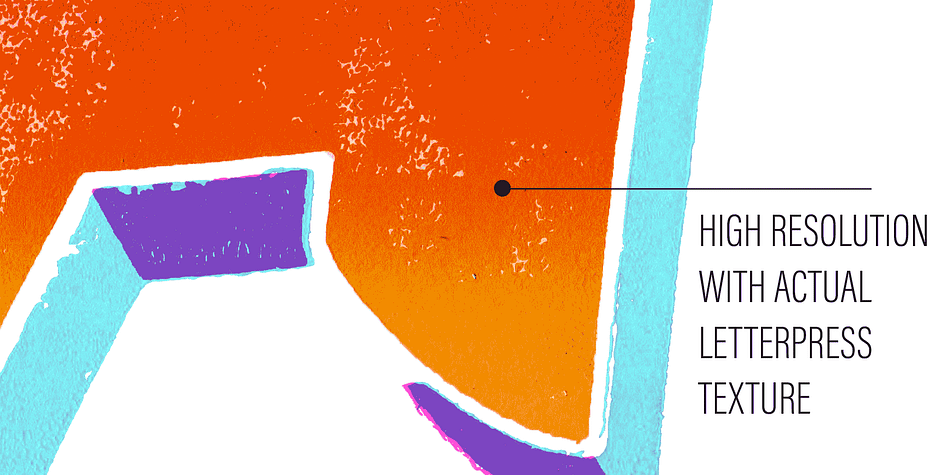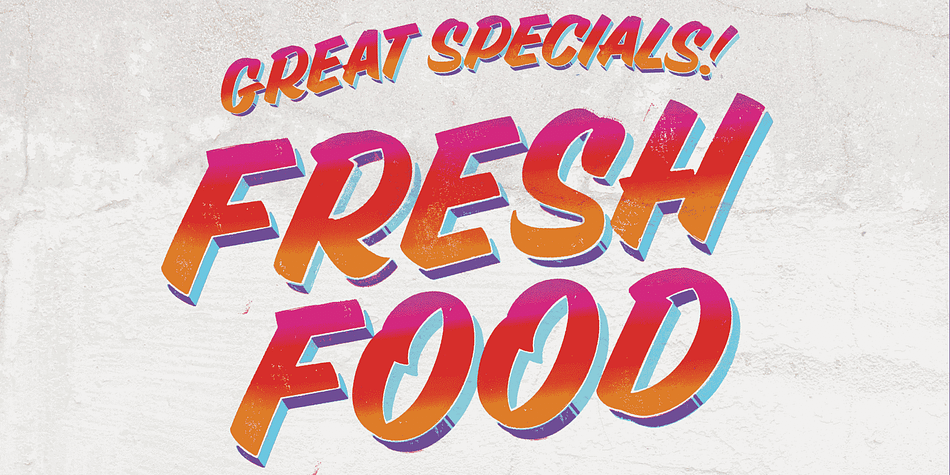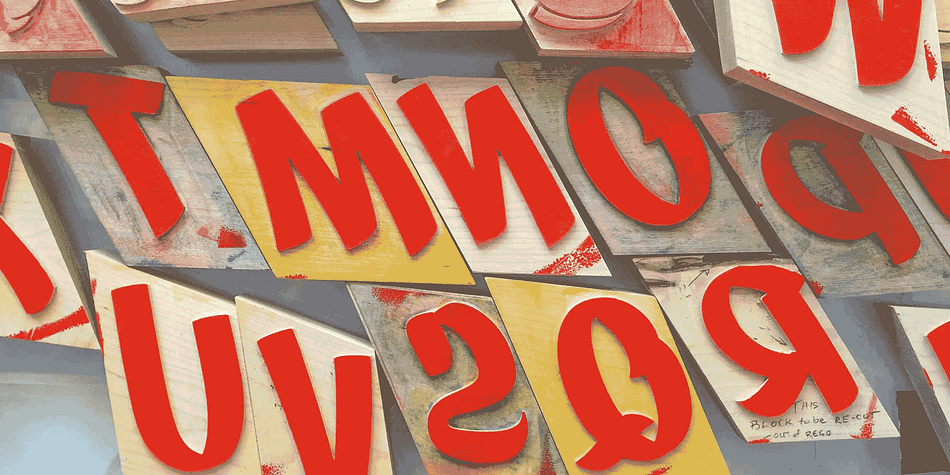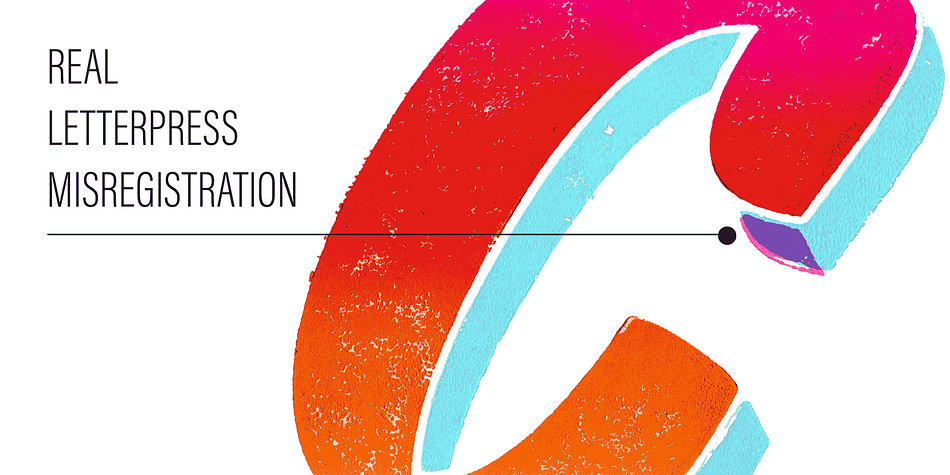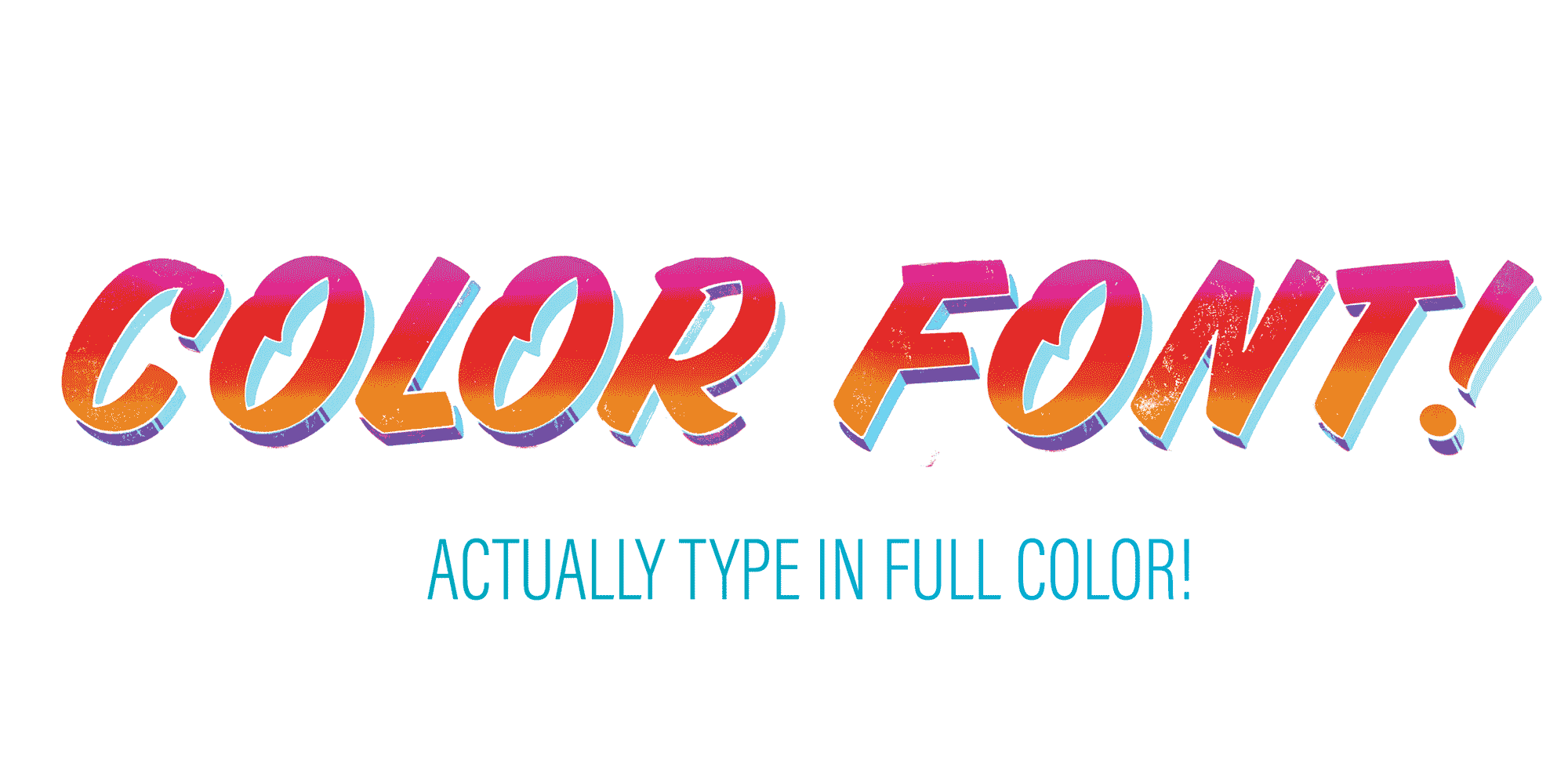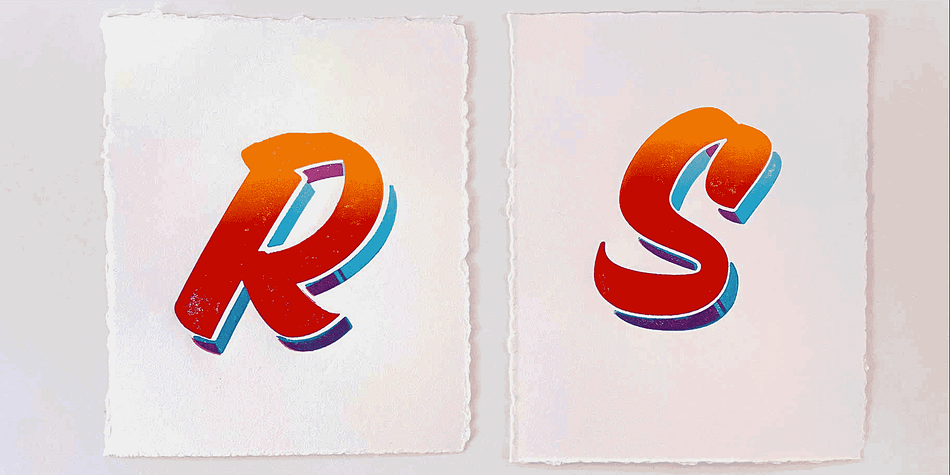
CEDRIC
Designed by Wayne Thompson, Cedric is a brush display and hand drawn font family published by Australian Type Foundry.
Cedric Sunrise is created from scans of actual letterpress prints from my wood type font. It’s a rare ‘chromatic’ font, which means there are three separate blocks—each printed in a different ink colour—producing extra colours on the press through overprinting. By downloading this font you get authentic wood type texture in a digital format! Original letterpress prints also available (email me!) Note: Font is capitals and punctuation only (no lower case).